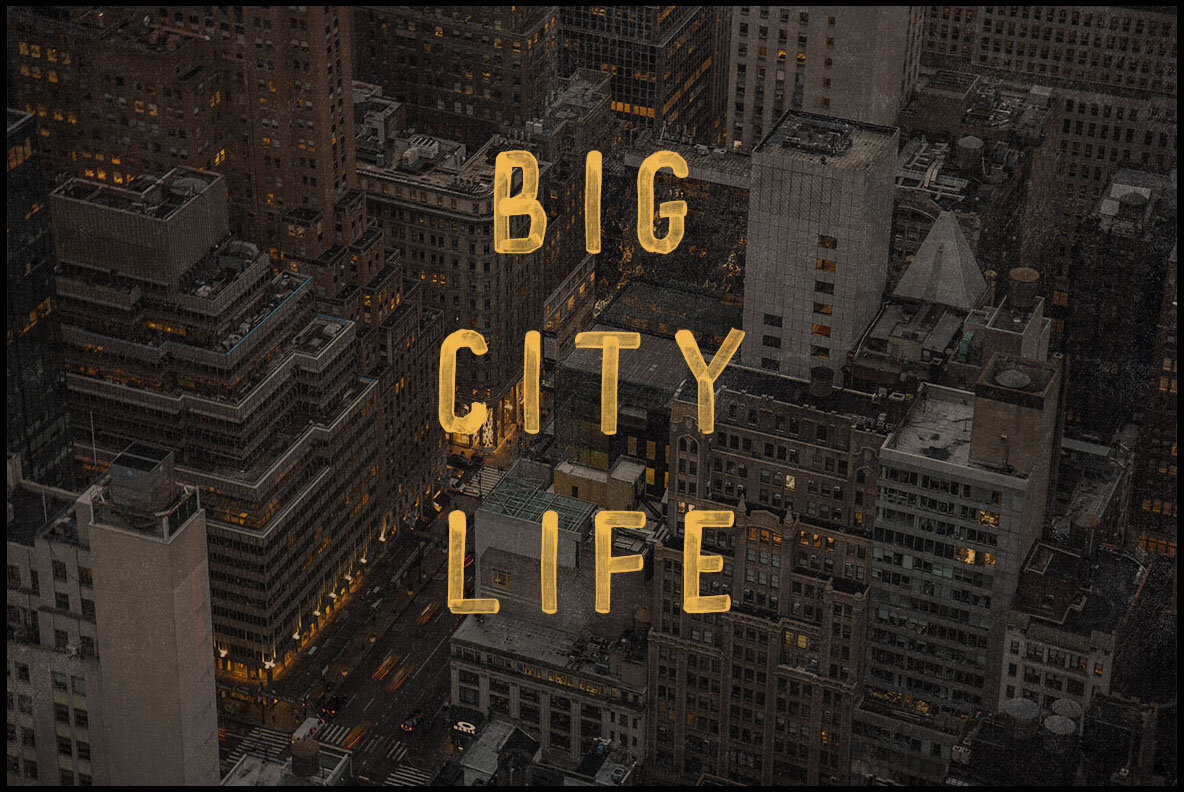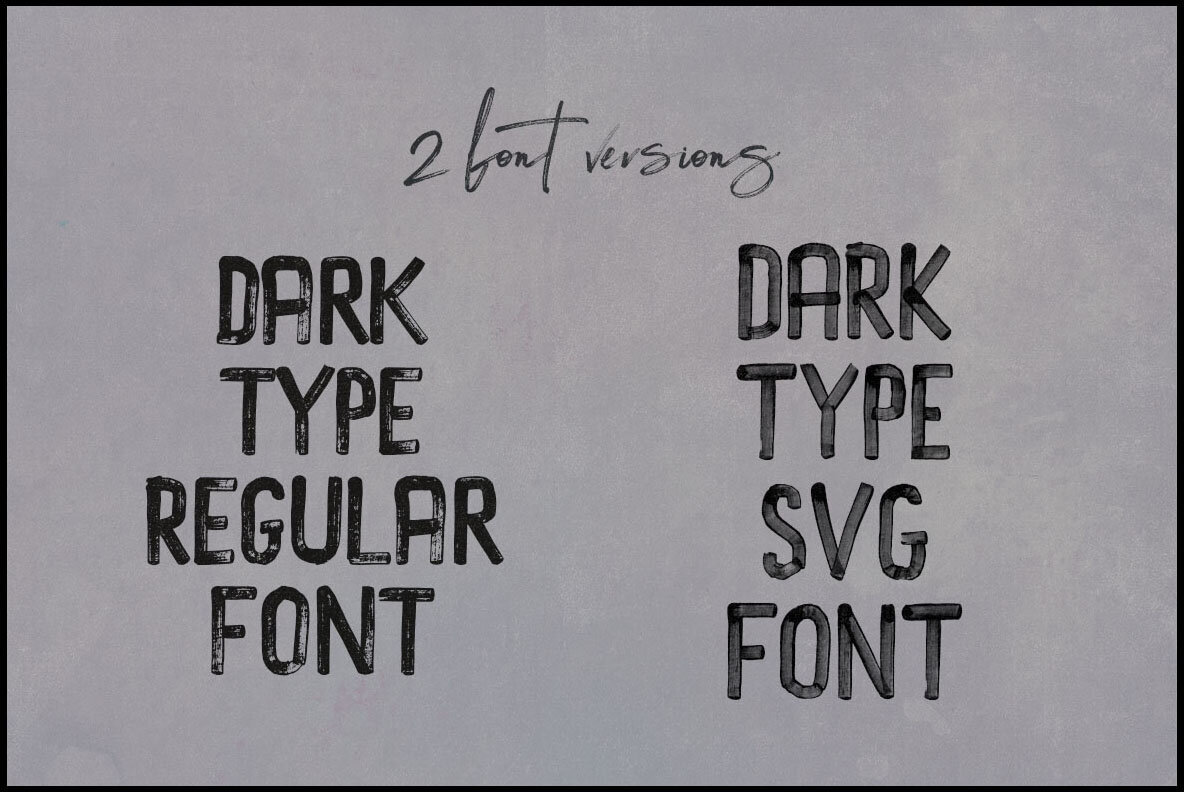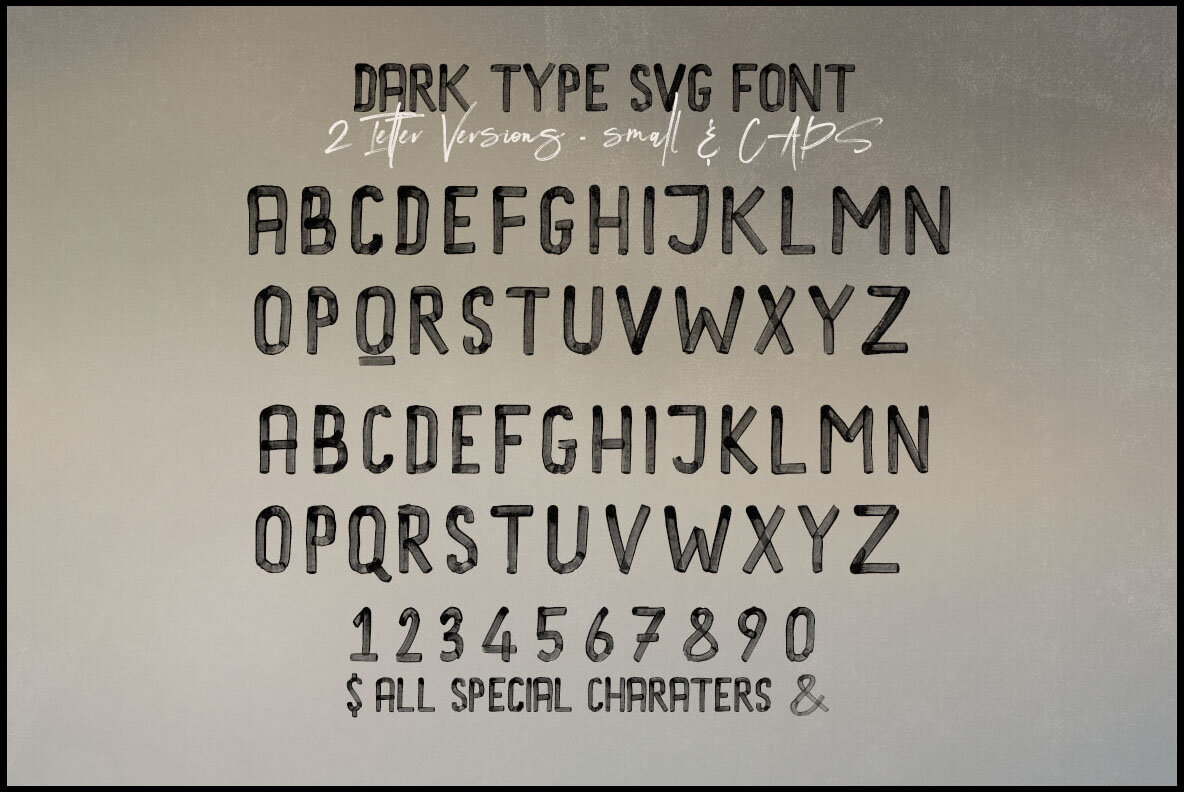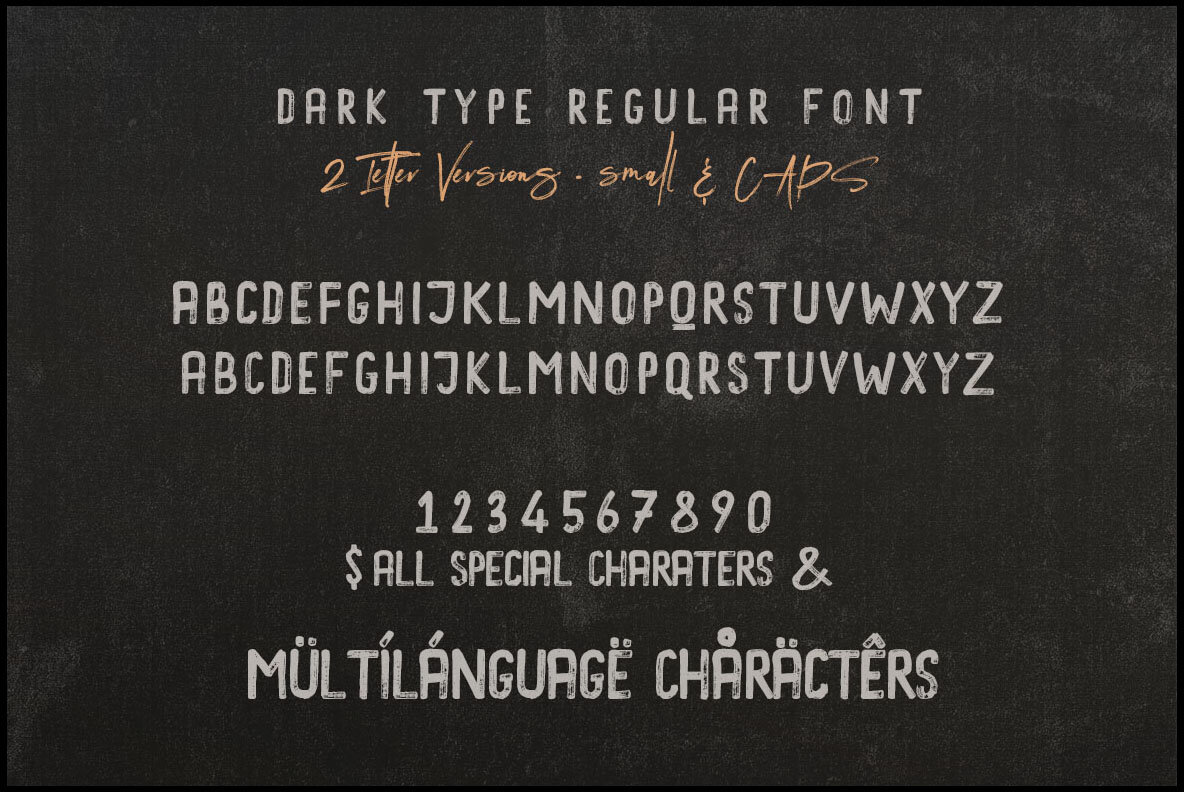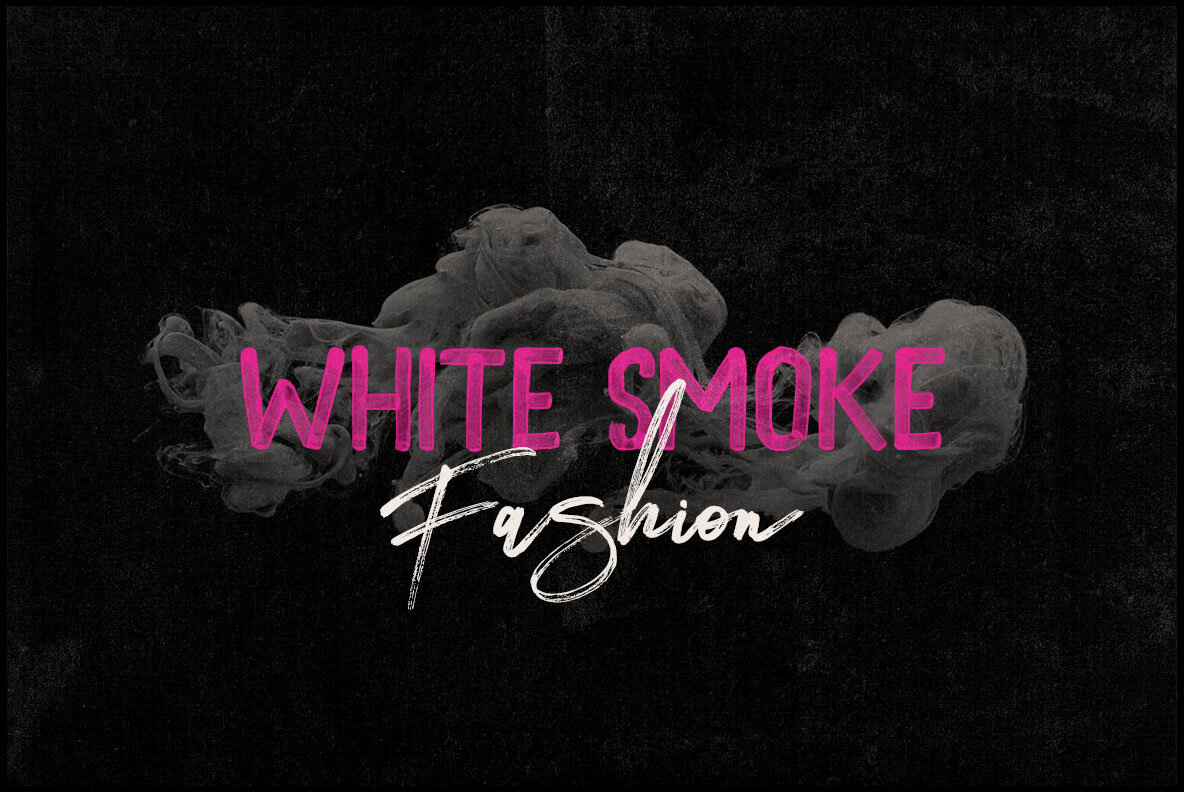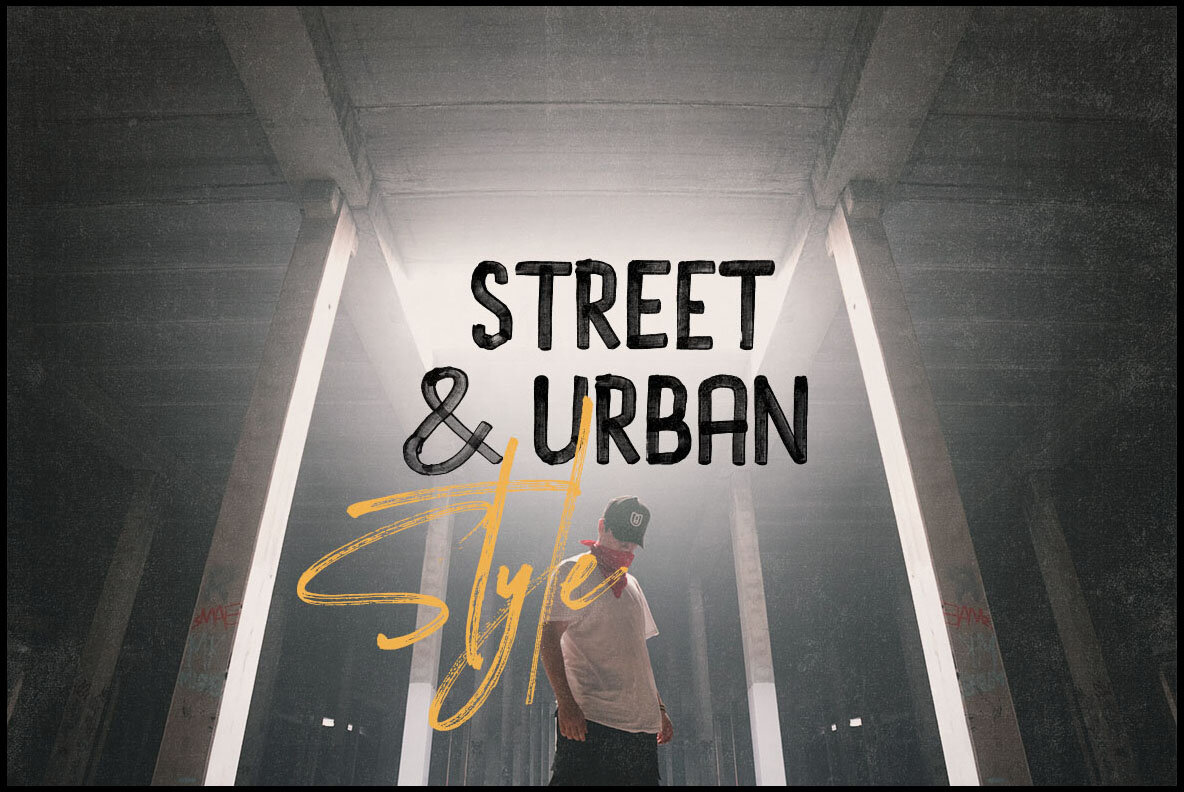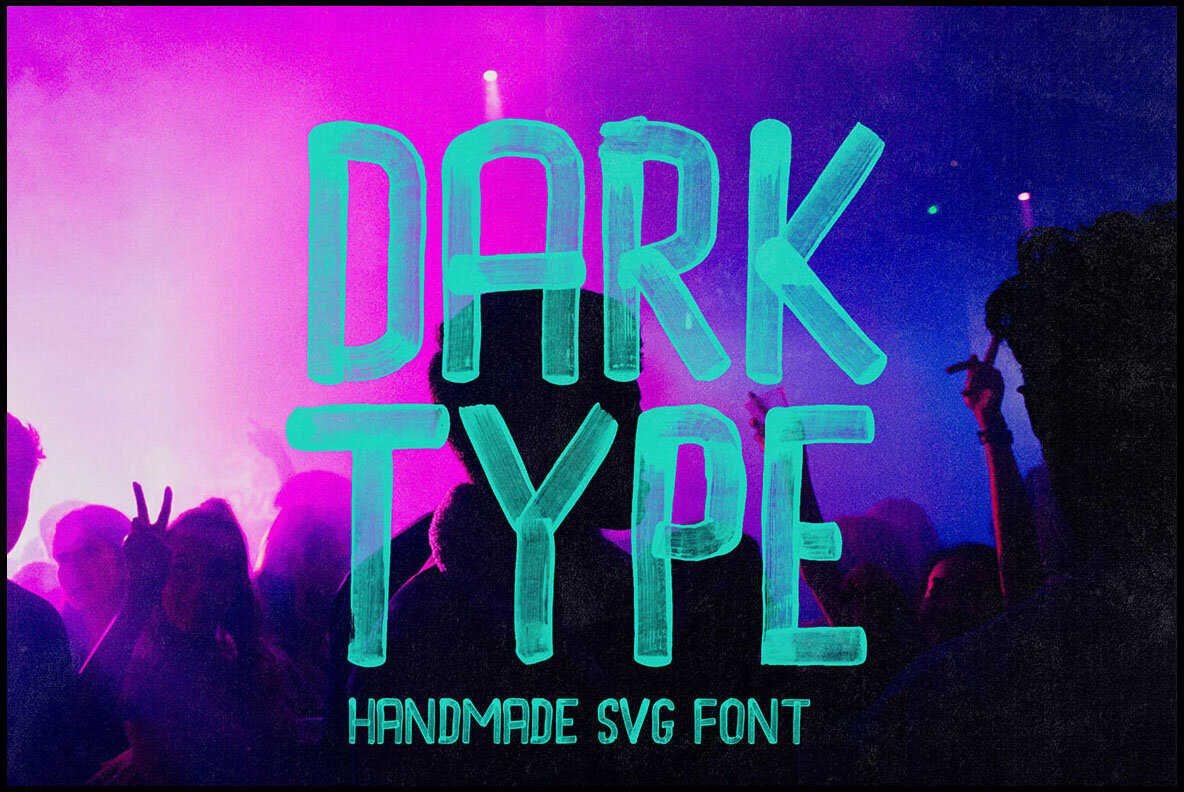
Dark Type Brush SVG Font
Dark Type Regular
DARK TYPE Svg
Dark Type Brush SVG by Peter Olexa offers a unique brush, paint, or grunge style sans serif display font for your creative projects. Perfectly suited for grunge, urban, and artistic designs, this font delivers an authentically rugged aesthetic.Dark Type Brush SVG: Artistic Display Font